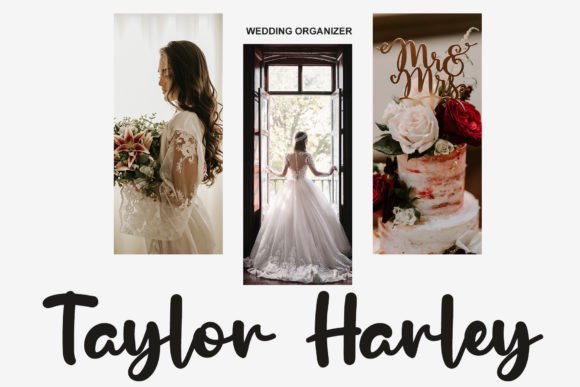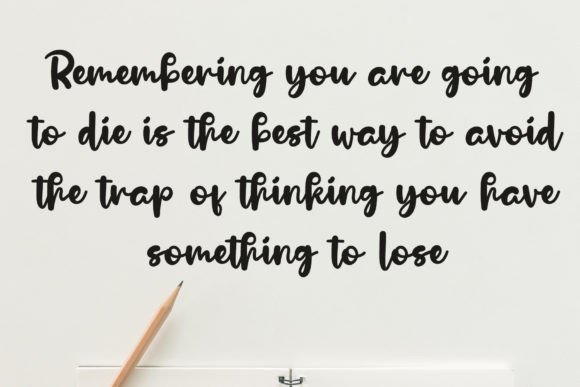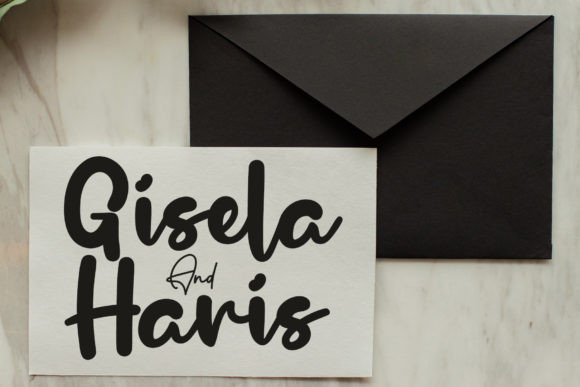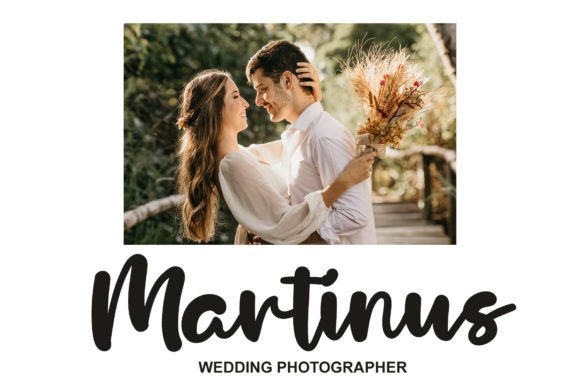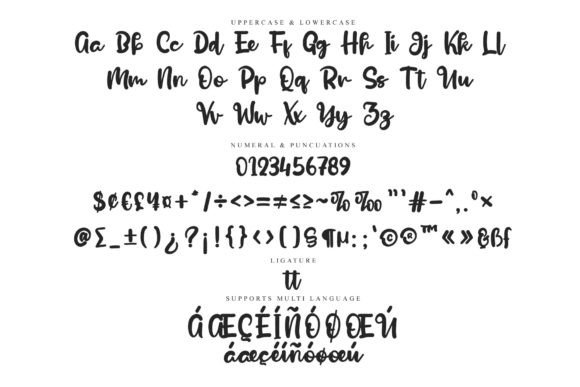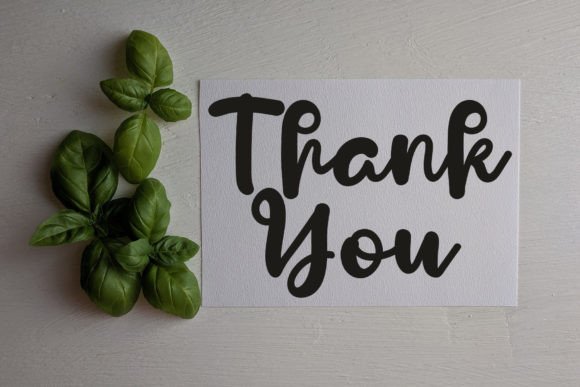
Slimber Font
About Slimber Font
If you’re looking for a font that mixes elegance with modern style, the Slimber font download is a perfect choice. This stylish handwritten typeface blends traditional calligraphic roots with a clean, contemporary look. Its graceful curves and well-balanced form make it a great fit for a wide variety of design projects.
From the first glance, Slimber captures attention. It doesn’t shout or overwhelm. Instead, it delivers a refined, artistic touch that enhances your message. Whether you’re designing a logo, a wedding invitation, or a quote for social media, this font brings just the right tone—soft, stylish, and easy to read.
One of the best things about the Slimber font download is its versatility. Not all handwritten fonts work well across different types of media, but this one does. You can use it for print or digital work without losing clarity or appeal. For example, it looks just as beautiful on a website header as it does on a greeting card.
Because of its smooth and even strokes, Slimber adds elegance without being too formal. That’s why it’s ideal for both personal and professional use. You could design a heartfelt thank-you note, then turn around and use the same font for a brand logo. Either way, it works—and it works well.
Moreover, this font was crafted with careful attention to detail. Each letter connects naturally, which helps keep your text flowing smoothly. This kind of polish is especially useful when you’re aiming for a high-end, boutique feel. Even small design details benefit from the graceful style of Slimber.
Transitioning from one creative project to the next can be difficult if you’re limited by the fonts in your collection. However, Slimber’s flexibility allows you to move between uses with confidence. Whether you’re working on packaging, business cards, event invitations, or blog graphics, this font helps keep your brand style consistent.
In addition, the font’s natural spacing and alignment make it highly readable—even at smaller sizes. That’s important for any design where clarity matters. With Slimber, you don’t have to choose between beauty and function—you get both.
To sum up, the Slimber font download offers a beautiful blend of timeless elegance and modern charm. It’s a must-have for designers who want to elevate their work without overcomplicating it. Try it today, and let your creative ideas come to life with style and grace.